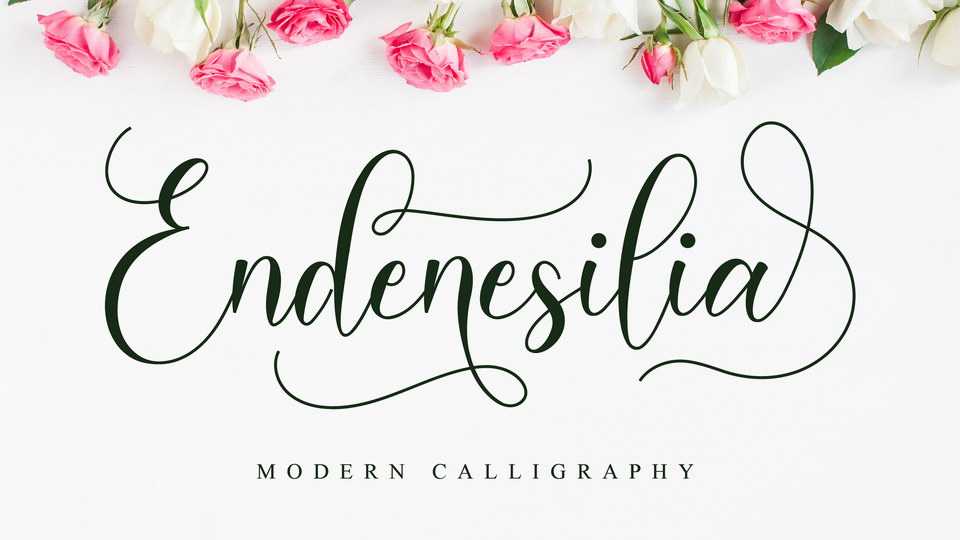
Download Endenesilia font, a beautiful calligraphy script. Endenesilia has a classy, elegant, and modern look which can be used for logos, branding, invitations, stationary, wedding designs, social media posts, and every other design which needs a handwritten touch.